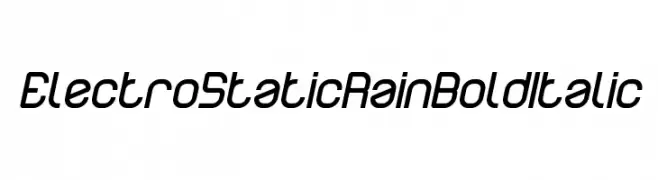
• Electro Static Rain Bold Italic
( weknow - Wino S Kadir - www.creativefabrica.com/designer/weknow/ )
A bold, italicized font with a futuristic and dynamic style.